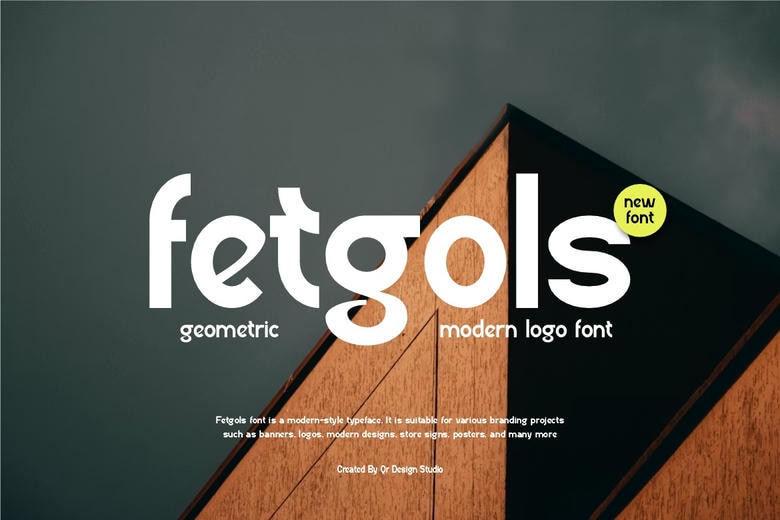
Fetgols Font
Fetgols Font is a bold and real display typeface. It is suitable in any branding undertaking including logos, sports designs, etc. This font is quite exquisite in a great variety of situations.
Fetgols Sans Serif Font